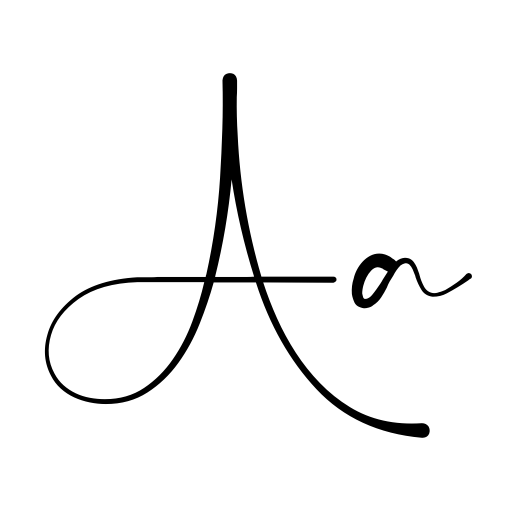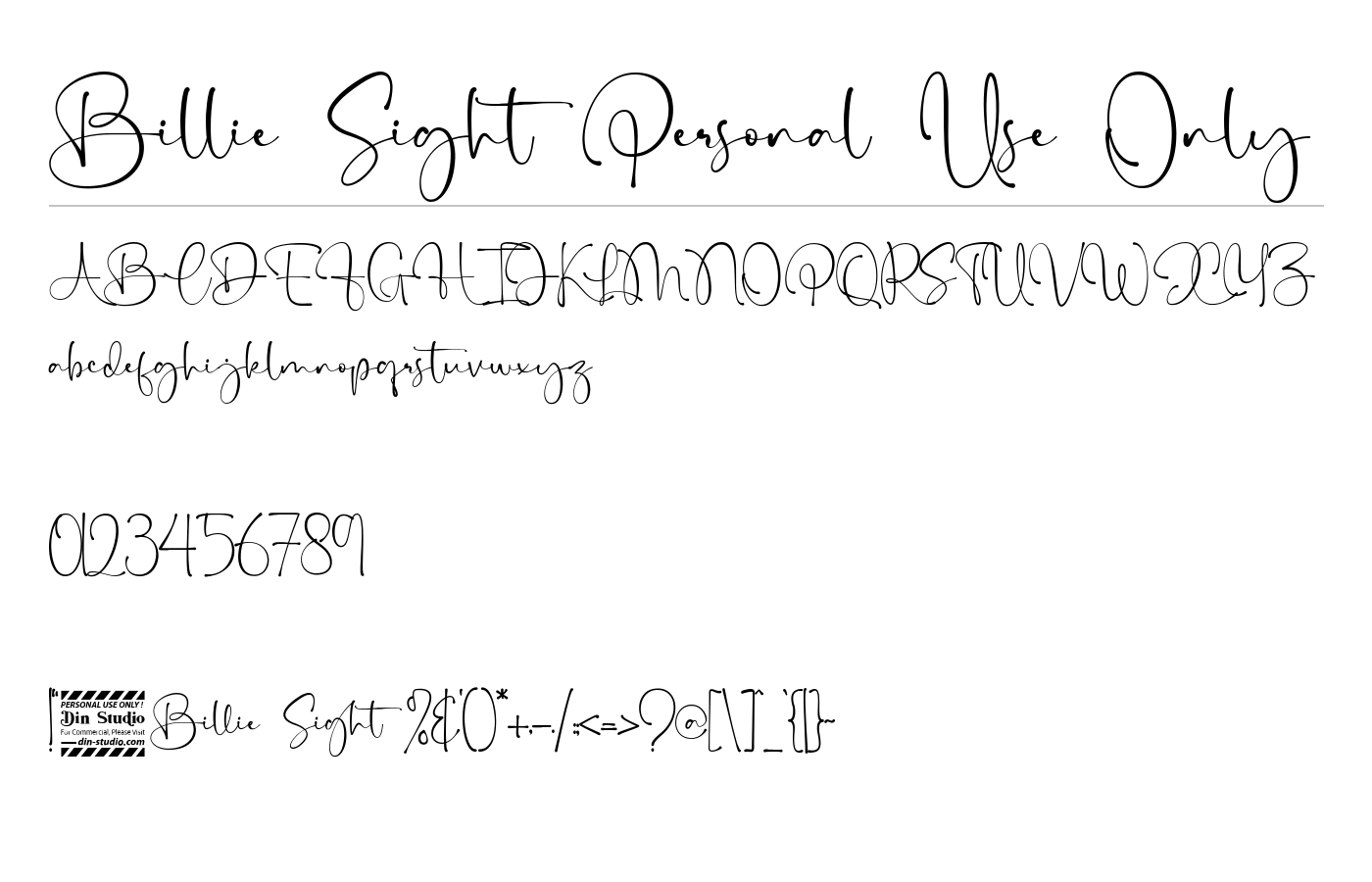
Billie Sight is a delicate, hand-drawn script font that features thin, flowing lines with a whimsical and elegant touch. Its light weight and tall, airy letterforms give it a modern and playful personality, making it perfect for personal projects, invitations, and branding that seeks a charming, handwritten feel. This font shines best in headlines or decorative uses where its intricate style can be fully appreciated.
Billie Sight Personal Use Only Font
About Billie Sight Personal Use Only Font